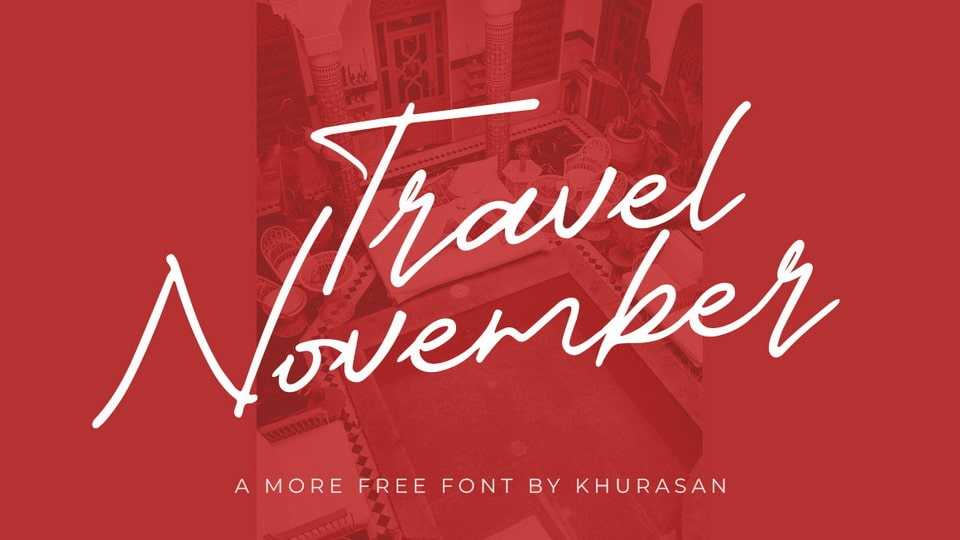
Download Travel November font, a stylish and modern calligraphy script typeface. Travel November font is perfect for posters, logos, magazines, book covers, banners, and many more.